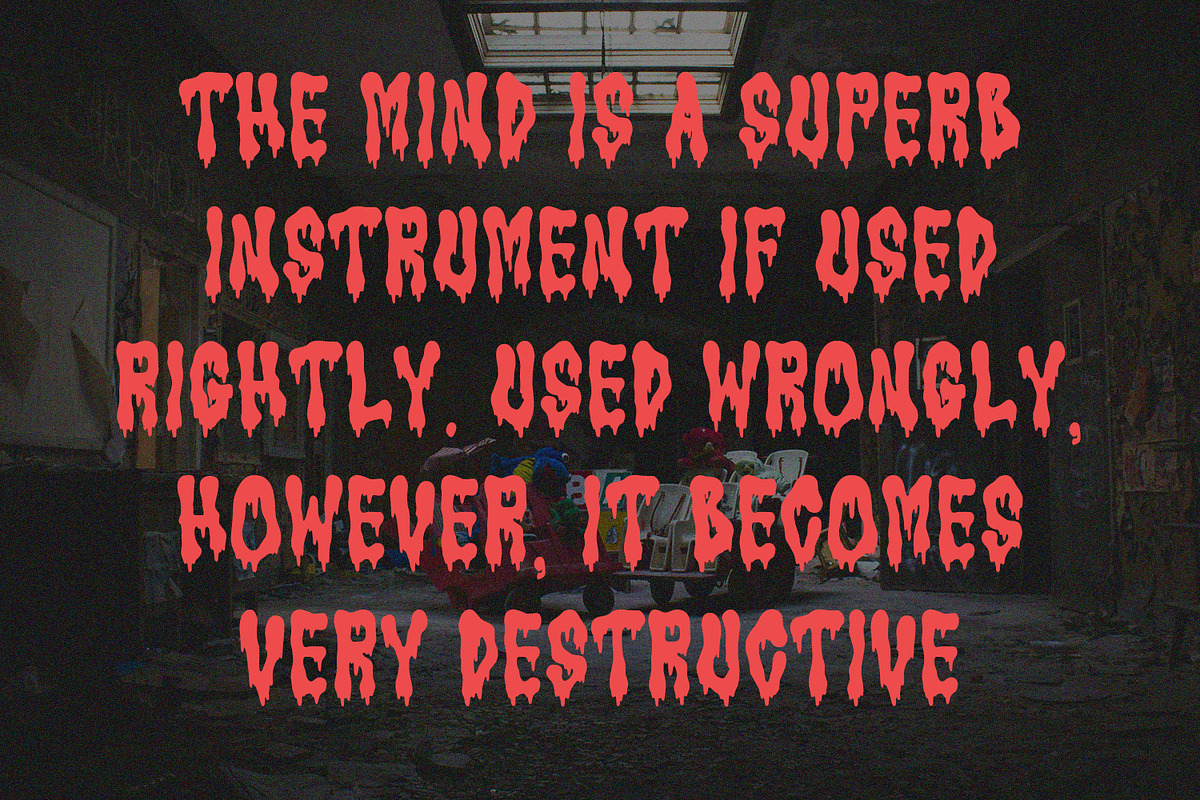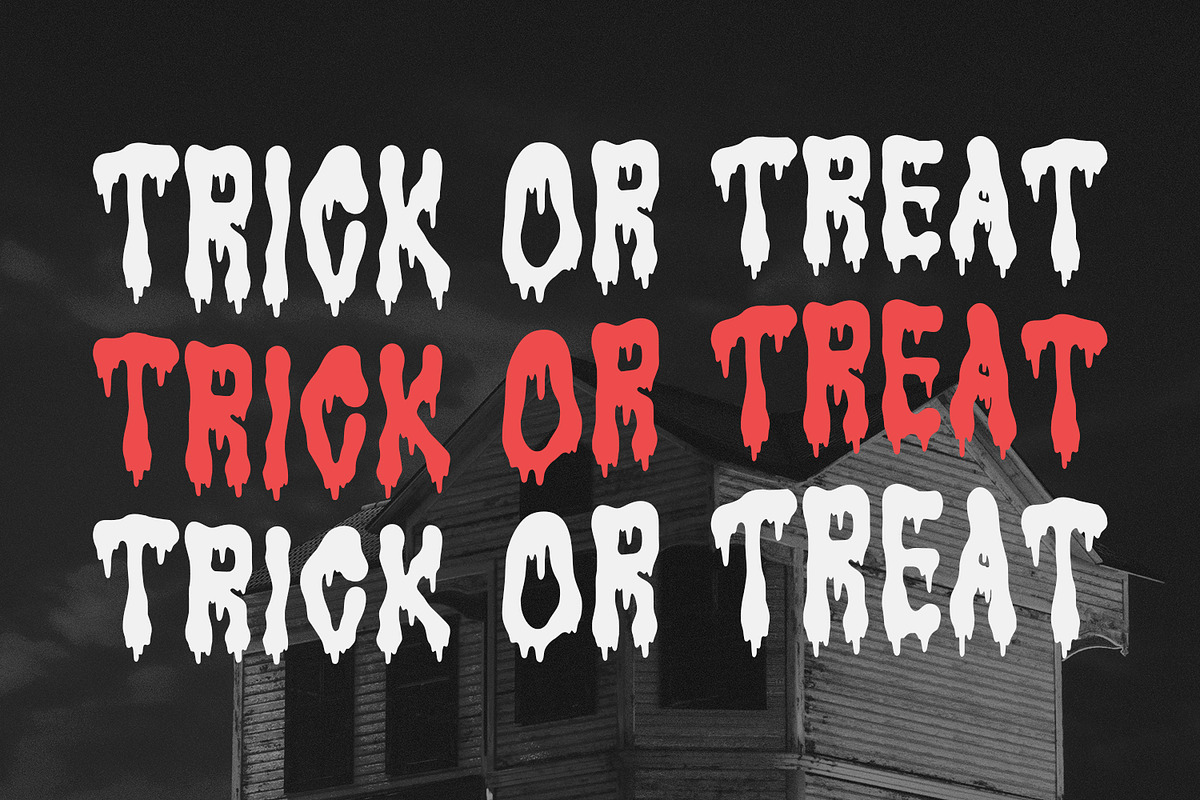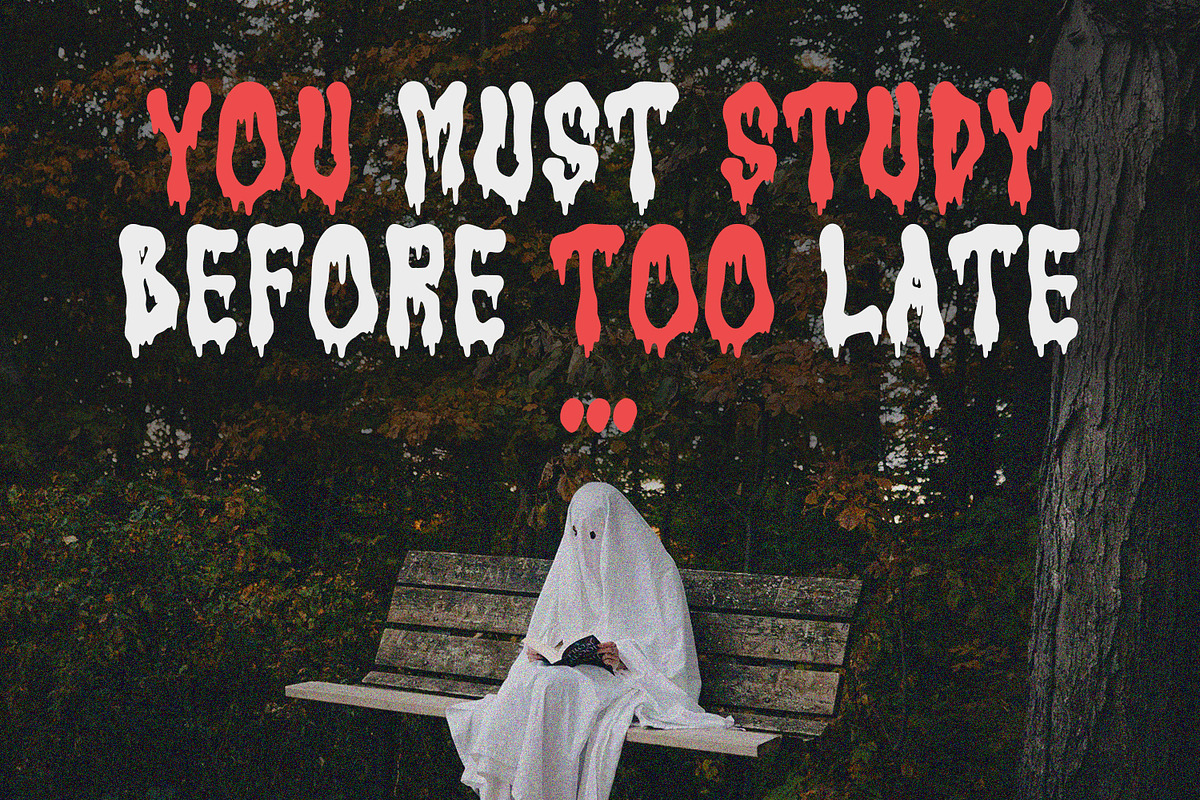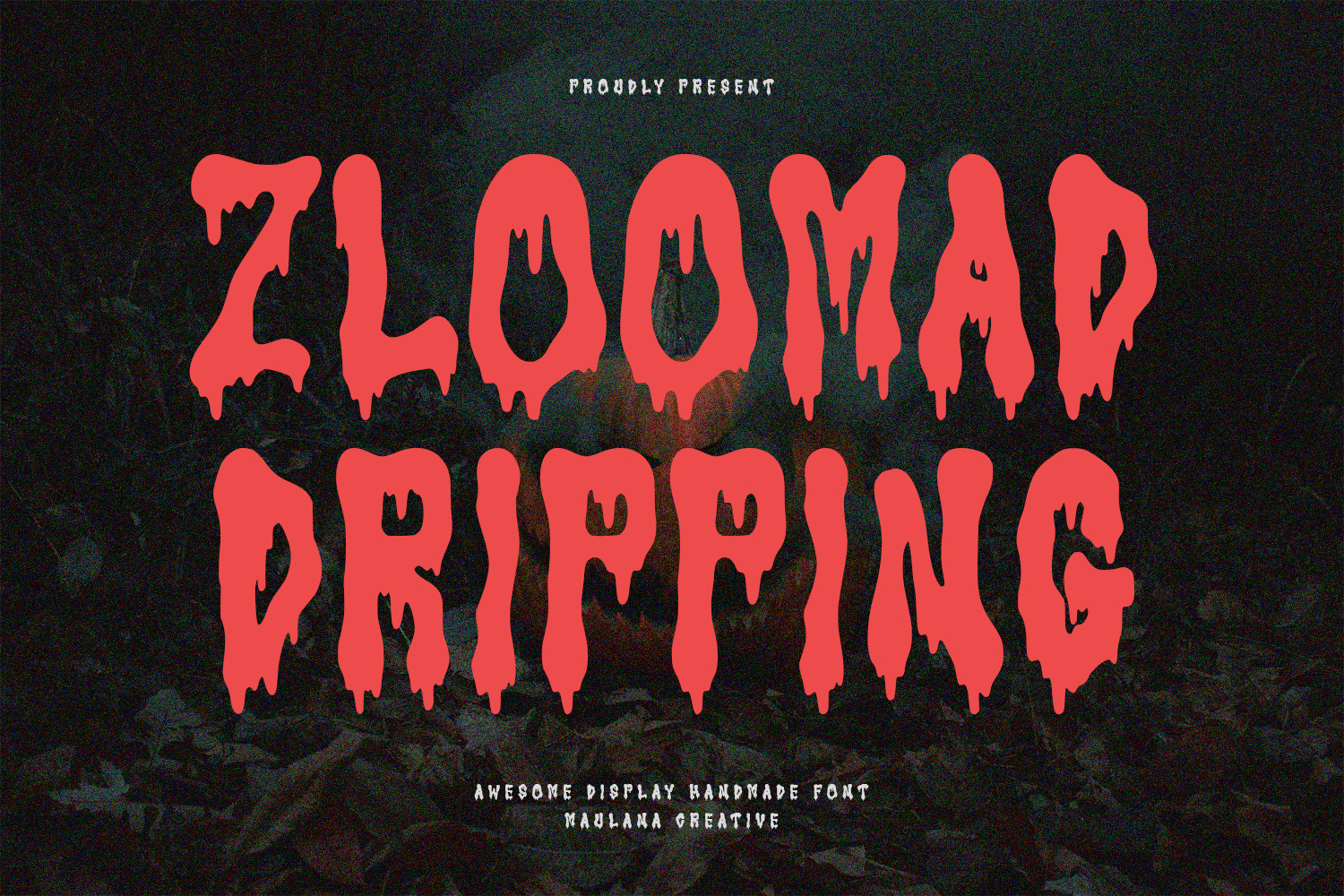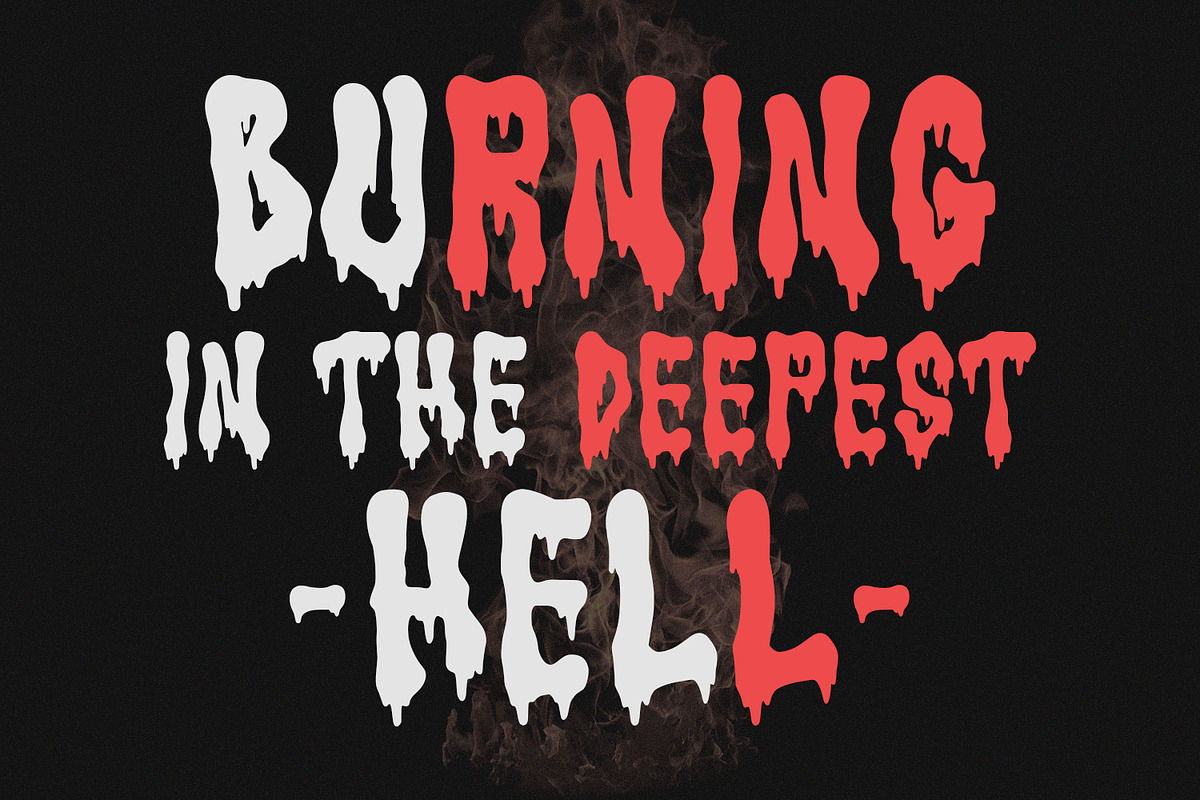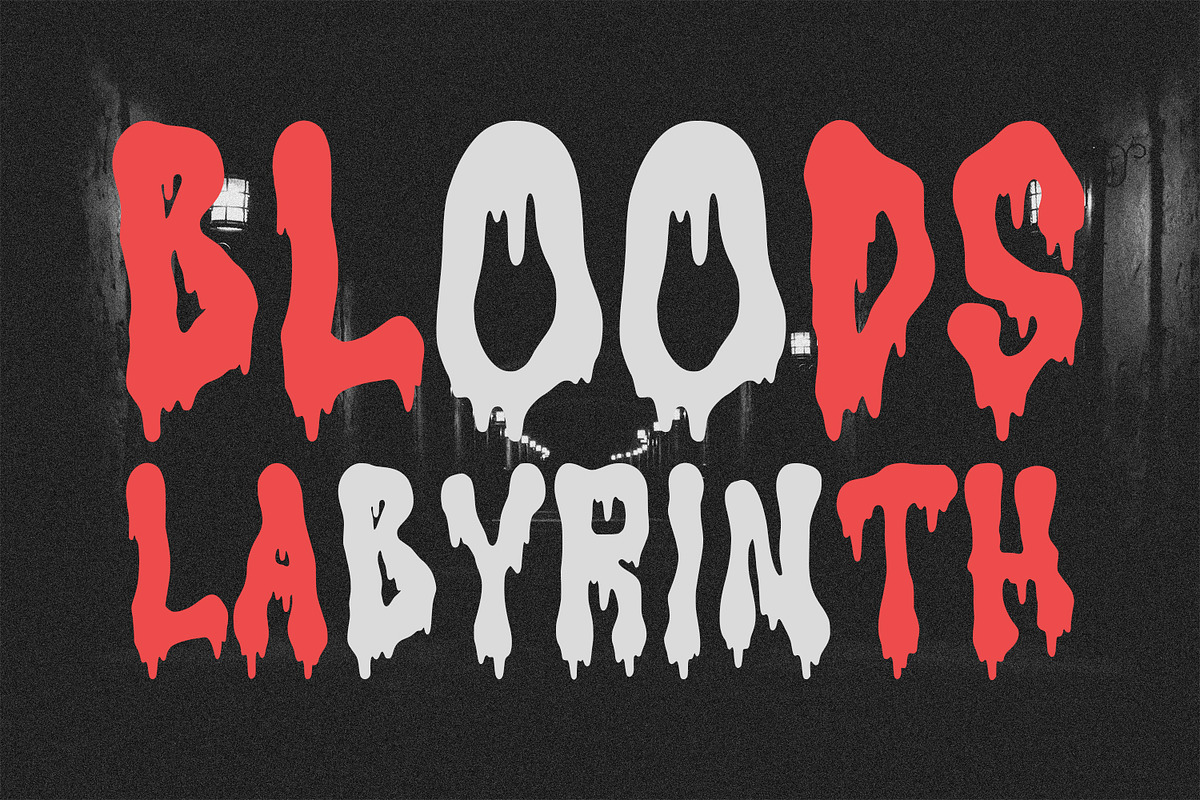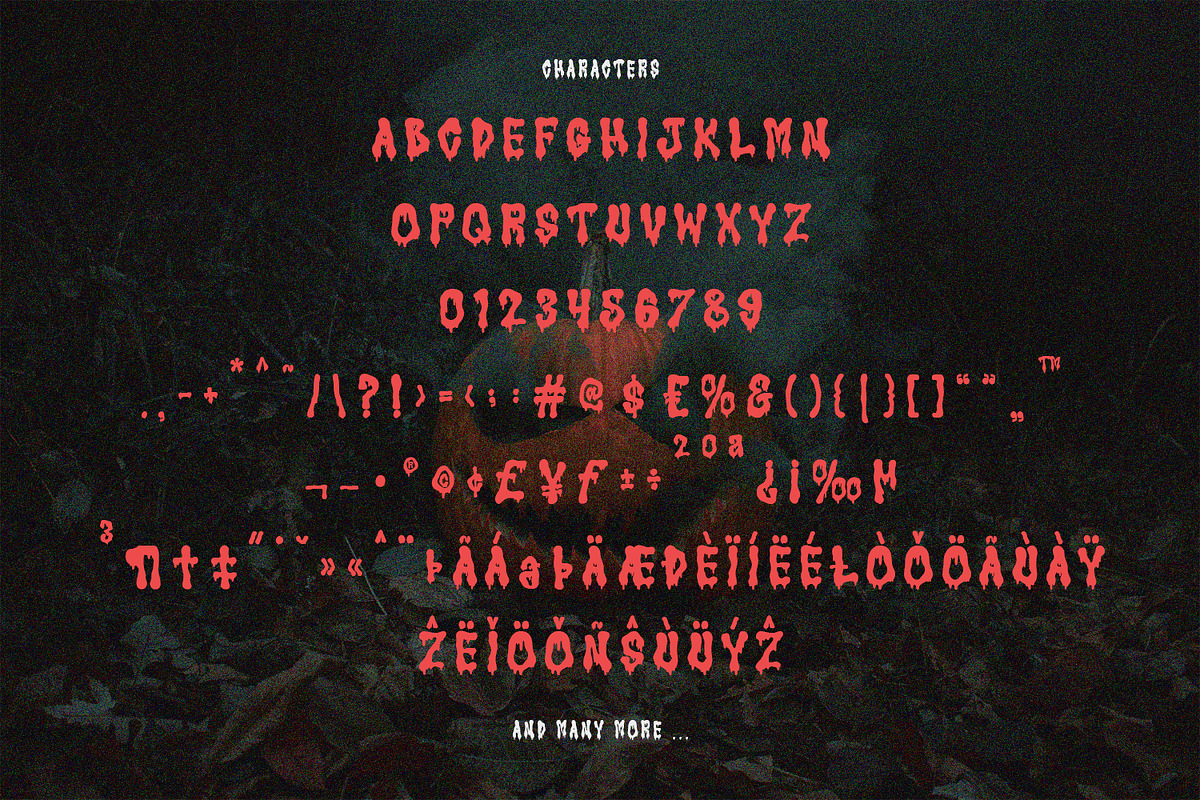
Zloomad Dripping Display Font
Zloomad is a dripping handmade display font. With bold stroke and fun character. To give you an extra creative work. Zloomad font support multilingual more than 100+ language. This font is good for logo design, Social media, Movie Titles, Books Titles, a short text even a long text letter and good for your secondary text font with sans or serif. Make a stunning work with Zloomad font.